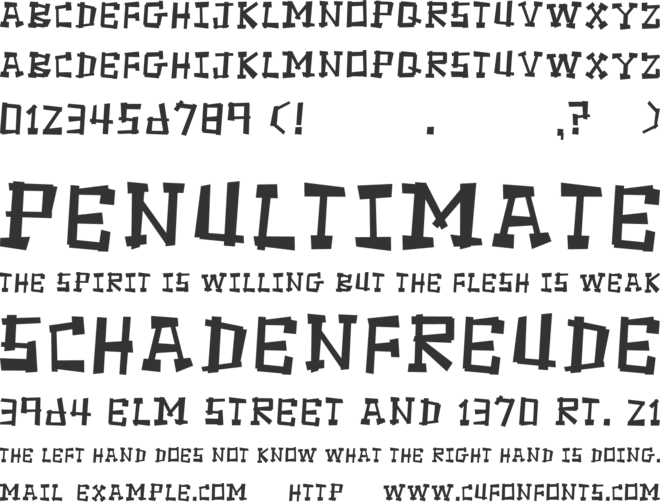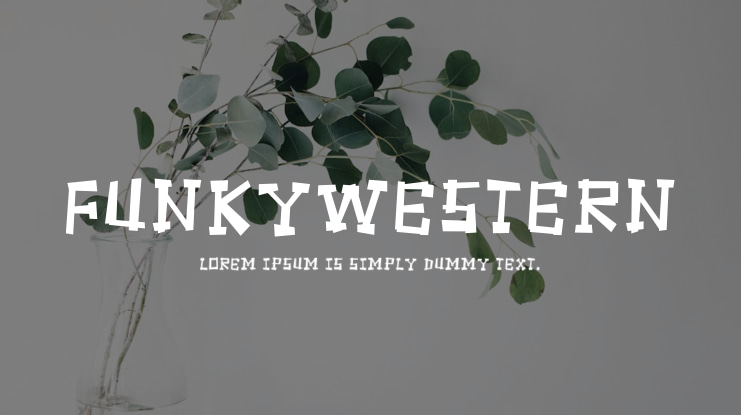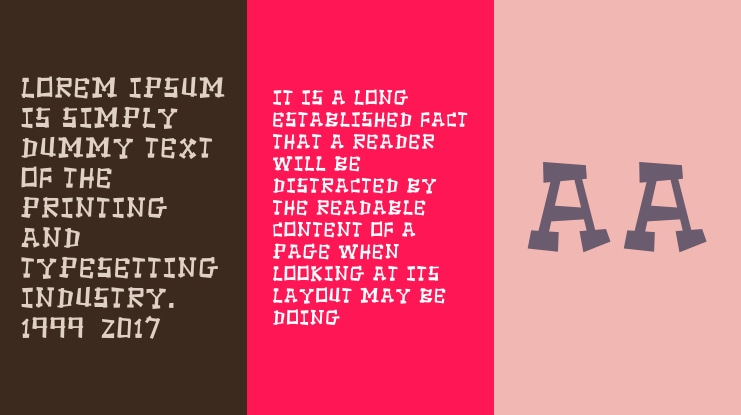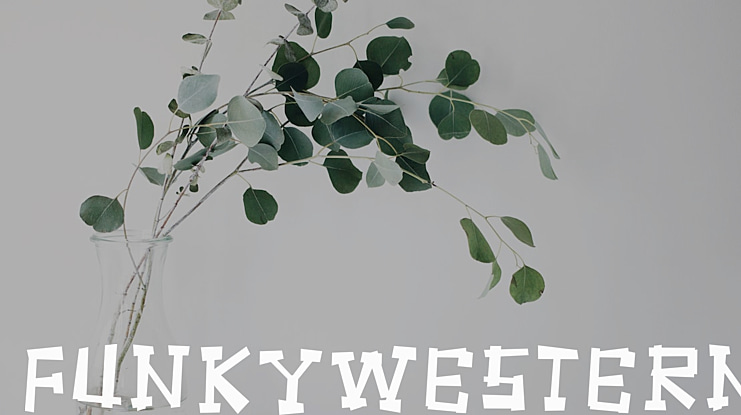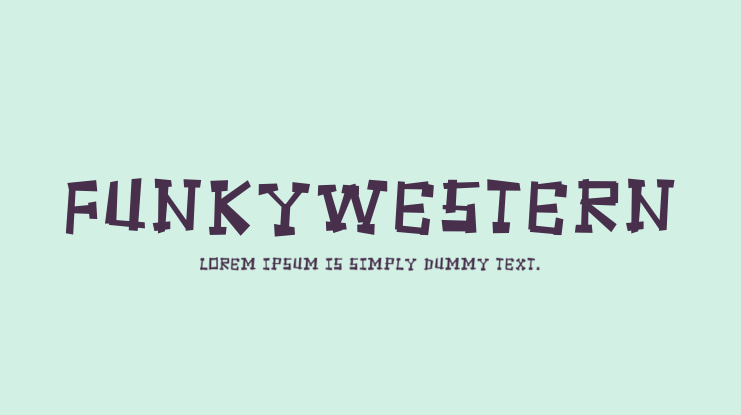
FunkyWestern Font Family
Marcus Melton
Funky Western is a fun western display typeface featuring an alphabet inspired by Saturday morning cartoons, the Wild West, and Pee-wee. This typeface is perfect for your project wanting a rootin' tootin' good time!
Funky Western